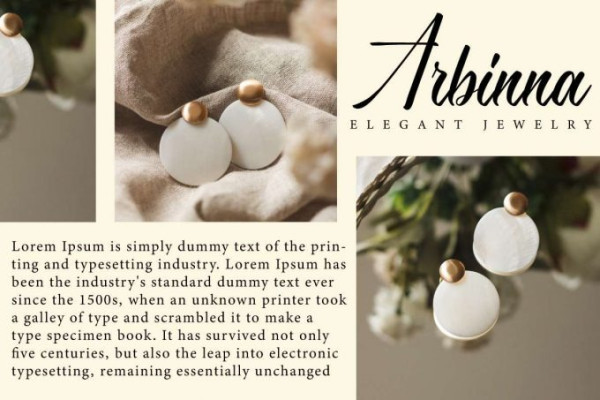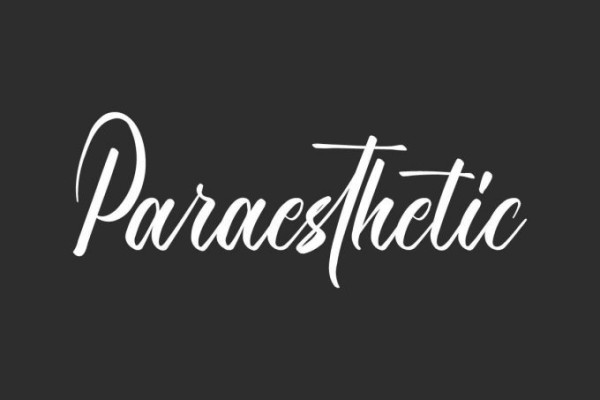
Paraesthetic Font
Paraesthetic Font is a beautiful calligraphy script font with stunning looks. When you look at this font, you will feel the beauty that wafts like flower petals in the wind. This font will be suitable for many industries, such as advertisement, art, café, hotel and resort, fashion, florist, handicrafts, jewelry, perfume, printing, publishing, skincare, wedding organizer, and more!
Paraesthetic Font includes full set of Uppercase and Lowercase Basic Characters, Numerals and Punctuation. Also it contains Ligature characters to make it catchy and add more aesthetic fonts to your extraordinary project, such as brand logo, brochure, catalog, custom design, frame art, invitation, label, packaging design, poster, quotes, screen printing, stationery, website, etc.